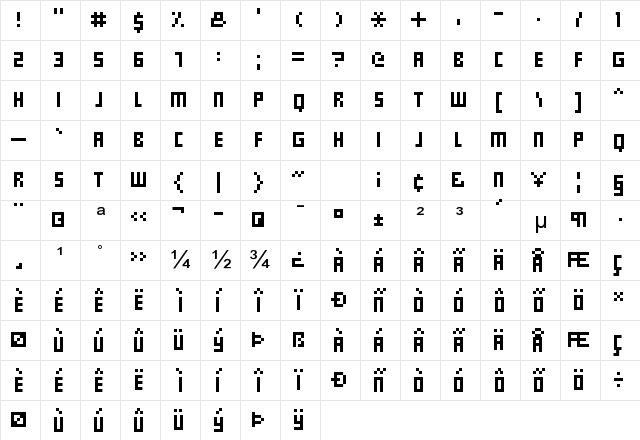
hooge Regular
hooge Family
Design Context for hooge
hooge is a composed and adaptable typeface that performs quietly and consistently across a wide range of design contexts.